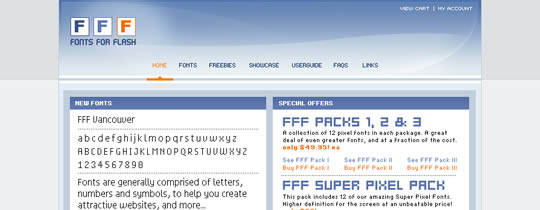
Fonts for Flash
Pixel fonts and Super Pixel Fonts for Flash developers. Over 100 fonts! Type small clear text in your Flash websites and make them look as crisp as HTML text. Free pixel fonts and trial versions available.